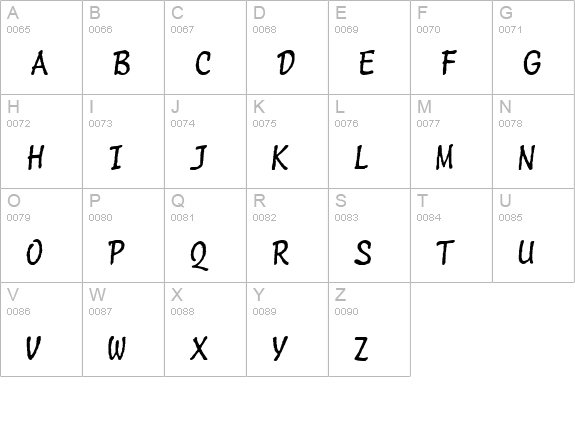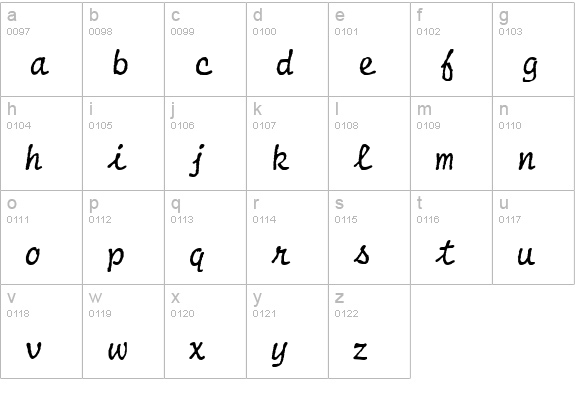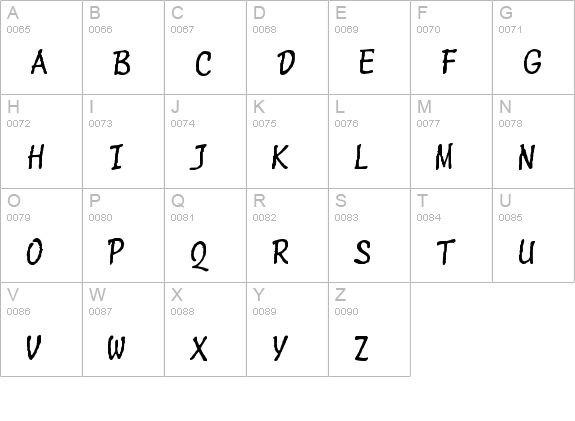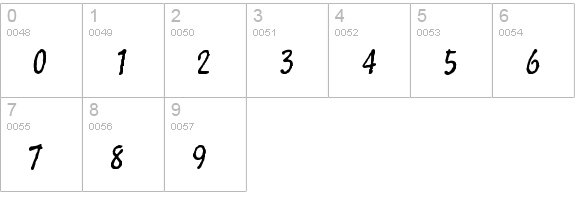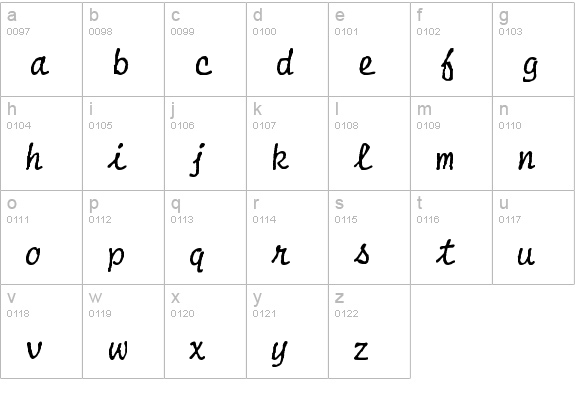
Kathleen Font Details
Introducing Kathleen, a beautifully crafted font that exudes elegance and sophistication. With its delicate curves and graceful strokes, Kathleen is perfect for adding a touch of class to any design project. Whether you're designing wedding invitations, branding materials, or simply looking to elevate your typography game, this font is sure to impress. But what sets Kathleen apart from the rest is that it's not only stunning, but also free! Yes, you read that right. This amazing font is freely available to download at FontsMarket.com. Now you can enjoy the beauty and versatility of Kathleen without having to spend a dime. Designed with meticulous attention to detail, Kathleen offers a wide range of characters and ligatures, allowing you to create unique and personalized designs. The font is carefully optimized for both print and digital use, ensuring that your creations will look stunning in any medium. With its timeless appeal and versatility, Kathleen is a must-have font for designers and creatives alike. So why wait? Head over to FontsMarket.com today and grab your free download of Kathleen. Elevate your designs and let your creativity soar with this exceptional font.